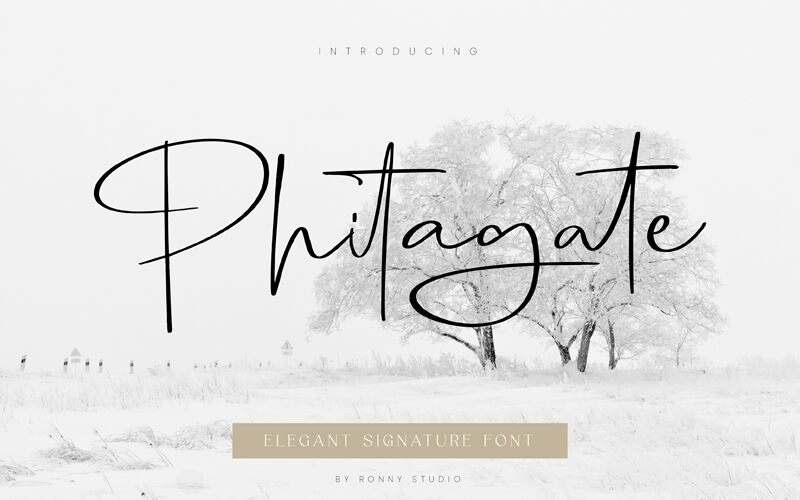
Phitagate-Regular
Phitagate, the elegant handwritten font by Ronny Studio, is perfect for adding a personal touch to your creative projects. Its light weight gives it a delicate and refined appearance, while its fluid curves and stylish flourishes make it ideal for anything from invitations to branding. Use Phitagate for logos, packaging designs, wedding stationery or even social media graphics. This versatile font will add an authentic touch to any project and is sure to leave a lasting impression on your audience. Give your designs a touch of sophistication with the charming Phitagate typeface.